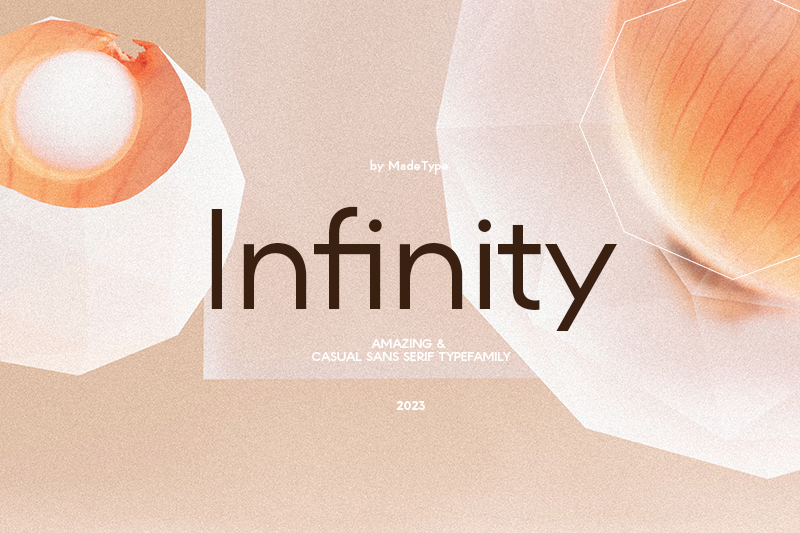
Font name: | Made Infinity |
Author: | MadeType |
MADE INFINITY is a new casual classic sans serif typefamily. https://www.behance.net/madetype ---- NOTE: THIS FONT IS FOR PERSONAL USE ONLY! ---- BUY FOR COMMERCIAL USE: https://www.youworkforthem.com/designer/1002/madetype https://fontbundles.net/madetype ---- If you have any questions, you can contact us by email: madetypeinfo@gmail.com |